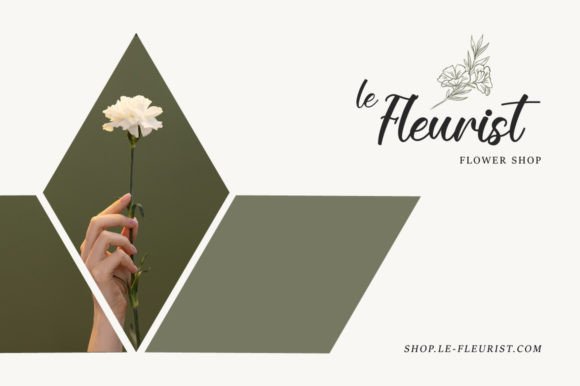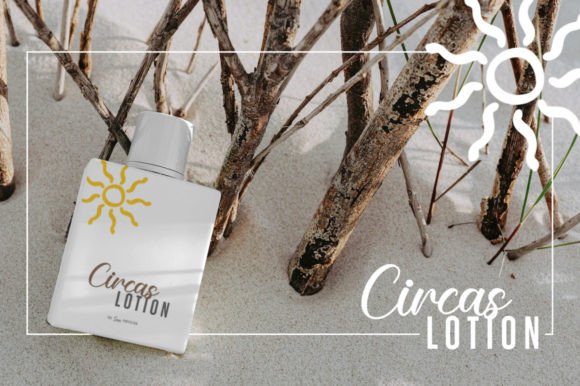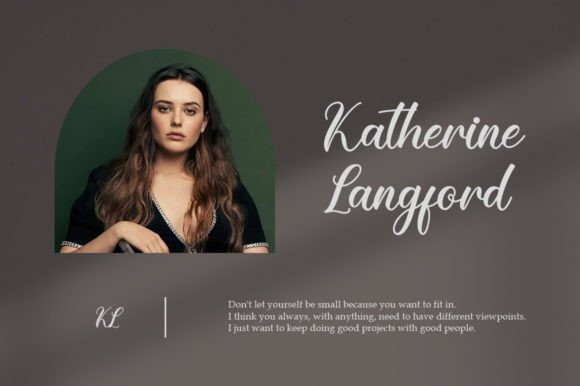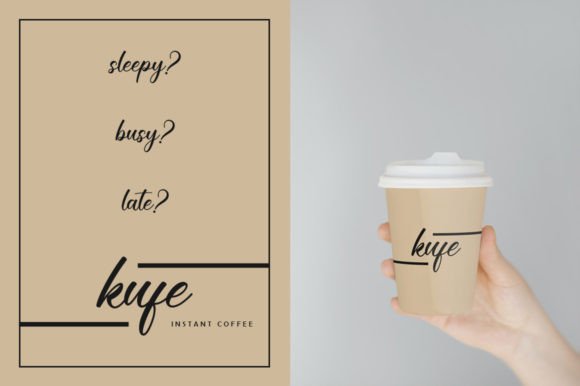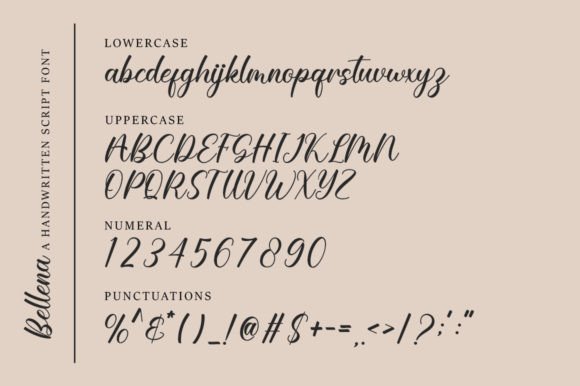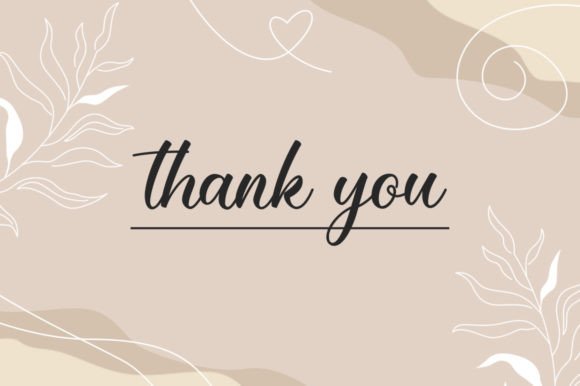
The Perfect Brushstroke: Unlocking the Magic of the Bellena Font
You know that moment when you’re brainstorming ideas for a new project, and suddenly a spark of creativity hits you? Maybe it’s the perfect phrase, the ideal color palette, or a font that just feels right. For designers, this moment is often the culmination of hours of research and experimentation. And for those who’ve stumbled upon the Bellena Font, it’s a moment of pure delight.
The Bellena Font is a beautiful, handwritten font that exudes a sense of timelessness and elegance. Its soft, flowing strokes make it an ideal choice for creating eye-catching logos, branding, and quotes that leave a lasting impression. Whether you’re working on a personal project or a client brief, the Bellena Font is a valuable addition to any designer’s toolkit.
Bellena Font Key Features
- Unique Characteristics: Elegant, cursive script with a touch of modernity, suitable for formal and informal use
Bellena Font Review
As a designer, I was excited to dive into the Bellena font, and I must say, it has its strengths and weaknesses. Let’s start with what works well: ✨ The Bellena font has a beautiful, elegant script that is perfect for creating a romantic and feminine atmosphere. It’s great for wedding invitations, baby announcements, or any design that requires a touch of whimsy.
✨ Another thing that I appreciate about the Bellena font is its versatility. It comes in a range of weights, from light to bold, which makes it easy to use in a variety of design scenarios. Additionally, the font is highly customizable, allowing you to adjust the spacing, color, and other settings to fit your design needs.
⚠️ One of the biggest limitations of the Bellena font is its readability. While it looks beautiful, the font can be quite difficult to read, especially in smaller sizes. This can be a problem if you’re using the font for body text or other areas where readability is crucial.
⚠️ Another limitation is the font’s lack of support for non-Latin languages. While this may not be a concern for some designers, it can be a problem if you’re working on a project that requires multilingual support.
In conclusion, the Bellena font is a beautiful and versatile script font that is perfect for creating a romantic and feminine atmosphere. While it has its limitations, it’s a great choice for designers who want to add a touch of elegance and whimsy to their designs.
Recommendation
- Use the Bellena font for titles, headings, and other design elements where readability is not a concern.
- Use the Bellena font in conjunction with other fonts to create a balanced and legible design.
- Avoid using the Bellena font for body text or other areas where readability is crucial.
Bellena Font is ideal for:
– Magazine and newspaper titles
– Book covers and interior design
– Creative and artistic projects